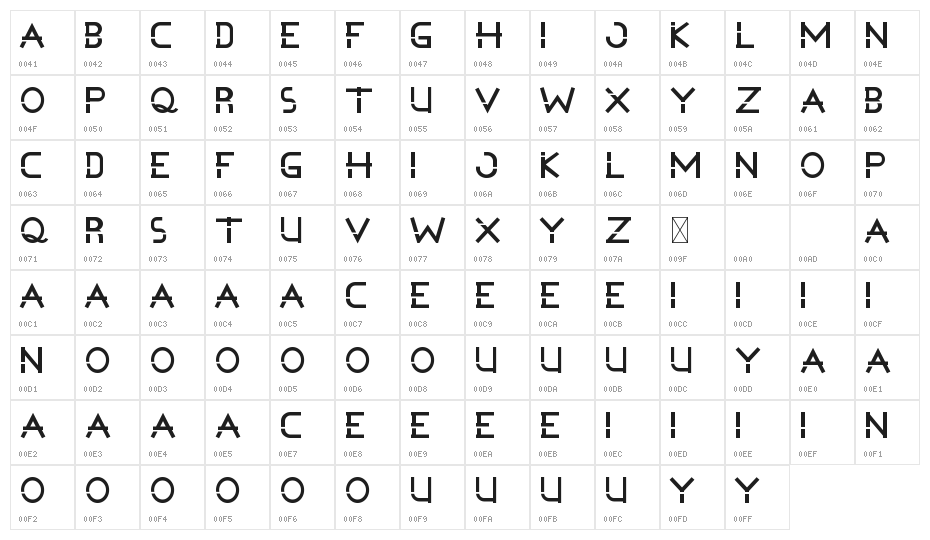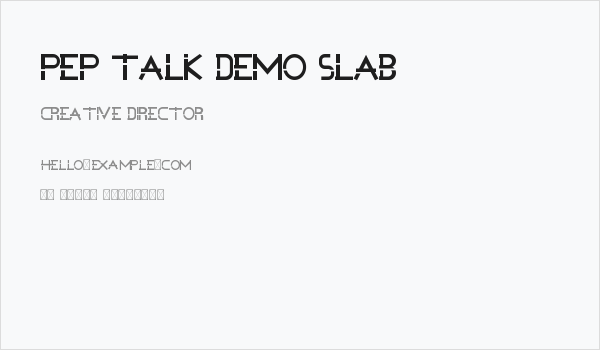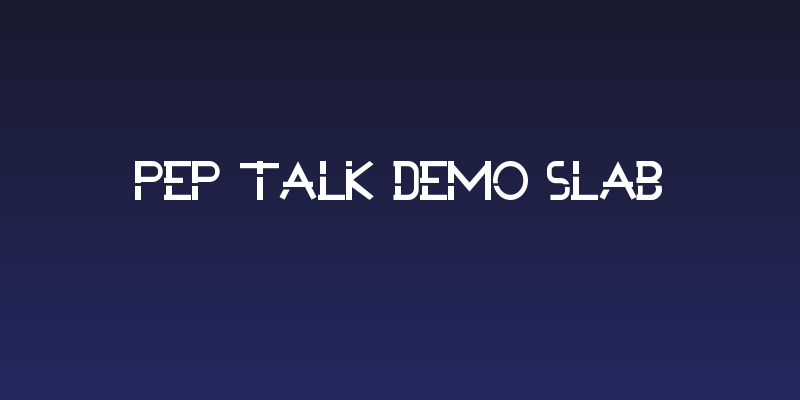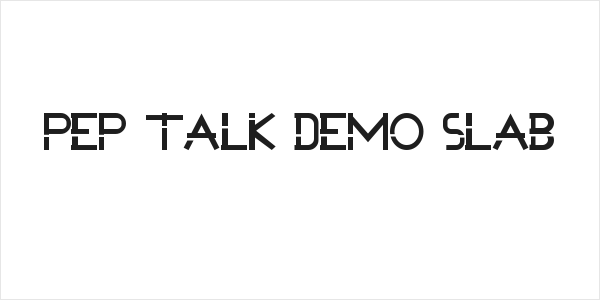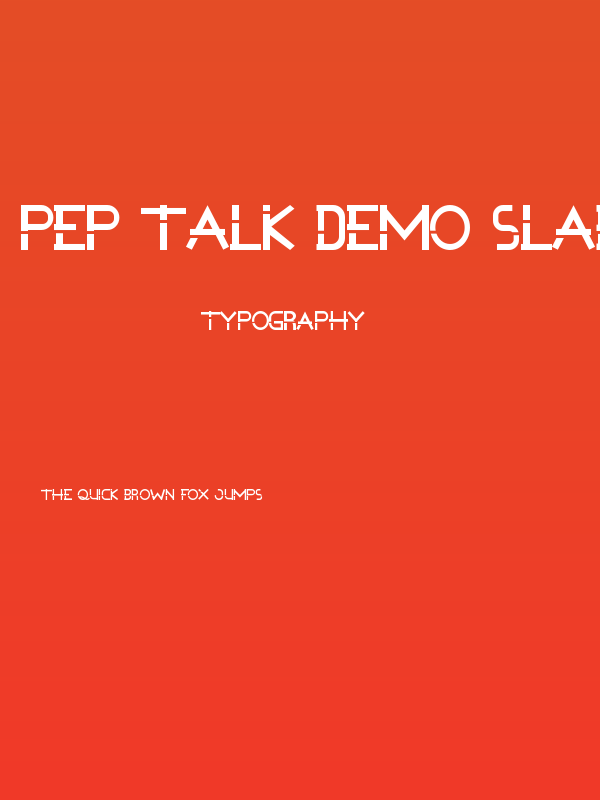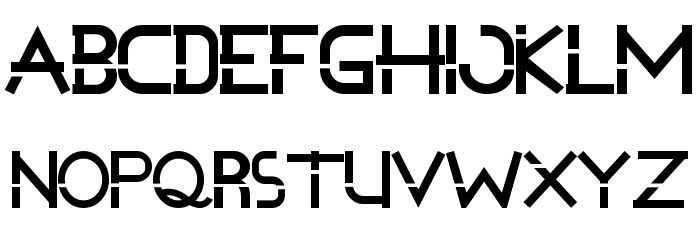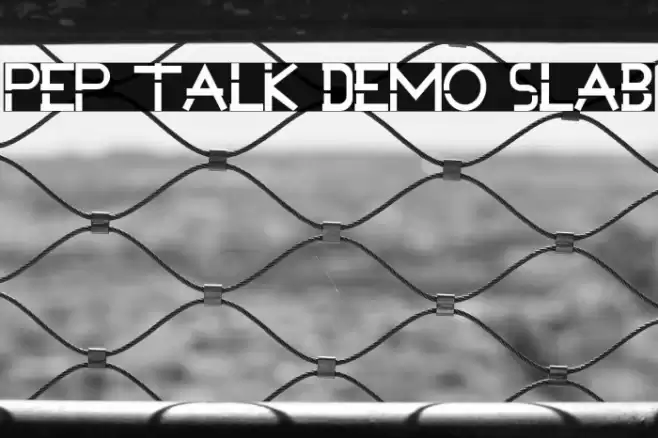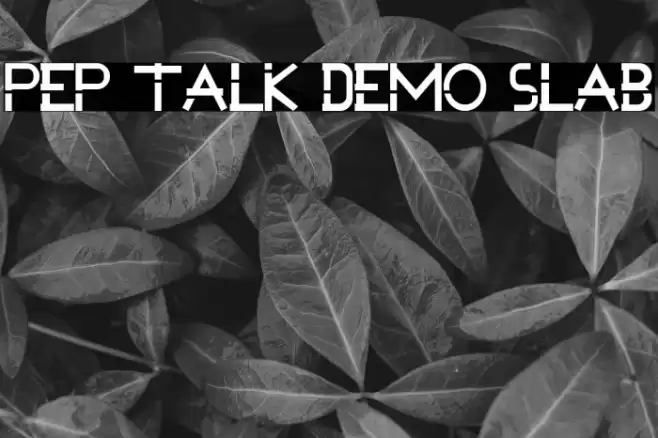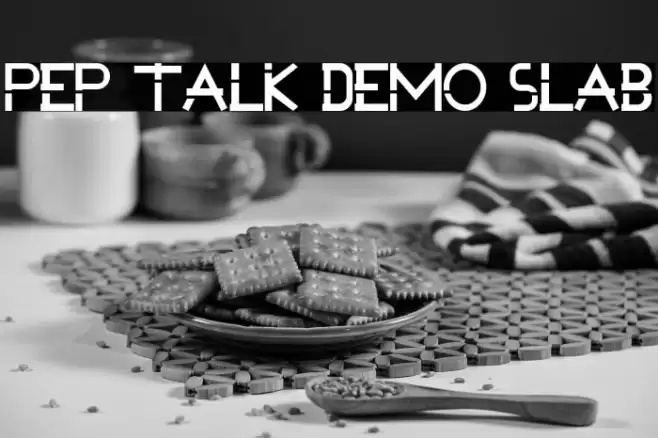
Pep Talk Demo Slab Font
This font features a bold, geometric design with a modern twist. The characters are constructed with a combination of straight lines and curves, creating a unique and eye-catching appearance. The uppercase letters are particularly striking, with angular cuts and a sense of symmetry that adds to the overall aesthetic. The font maintains a consistent weight throughout, giving it a strong presence. The spacing between characters is tight, which enhances the compact and cohesive look. This style is well-suited for projects that require a contemporary and bold statement.
| Proposed Projects | Ideal for branding, posters, headlines, and digital media that require a strong visual impact. |